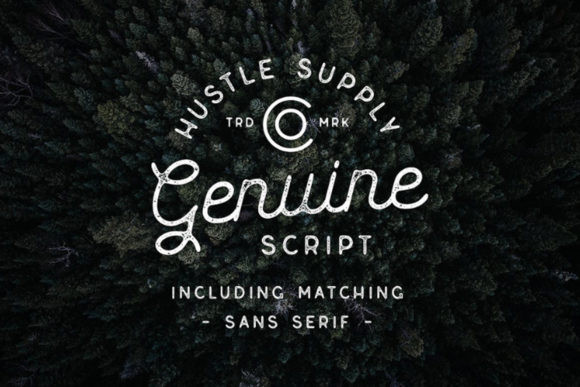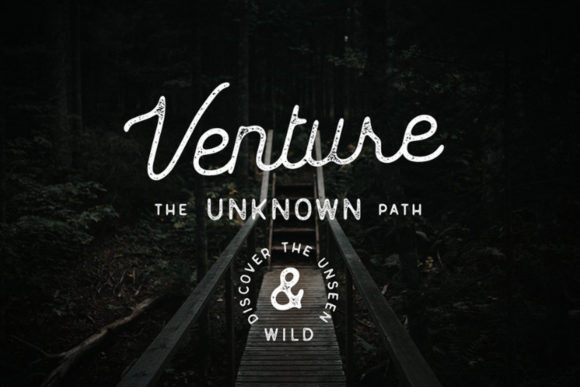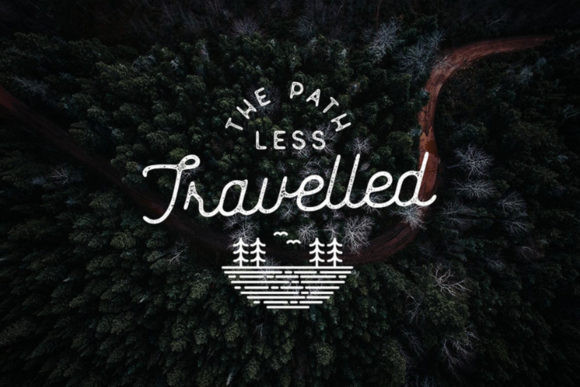
Genuine Font
Back to the future! Genuine feels playfully nostalgic and delivers an incredible vintage aesthetic. It comes in 4 unique font styles: clean, textured, script and sans serif. Use it to add that special retro touch to any design idea you can think of!